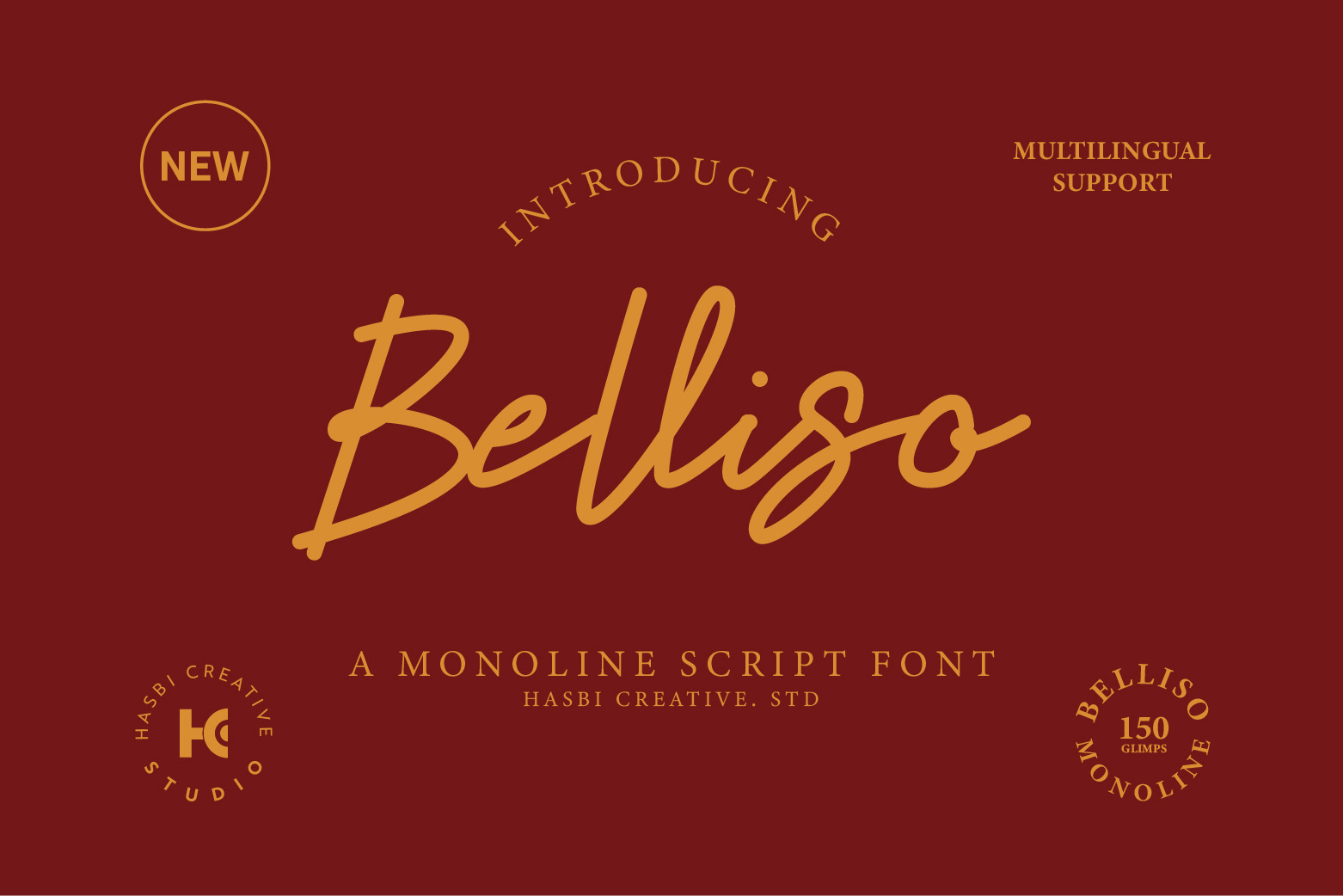
Belliso - Monoline Script Font
Belliso Monoline Script Font - This font is recommended for displays. Belliso has 99+ glyphs including many OpenType features that you can mix and match each character to get a more playful handwritten typographic design.